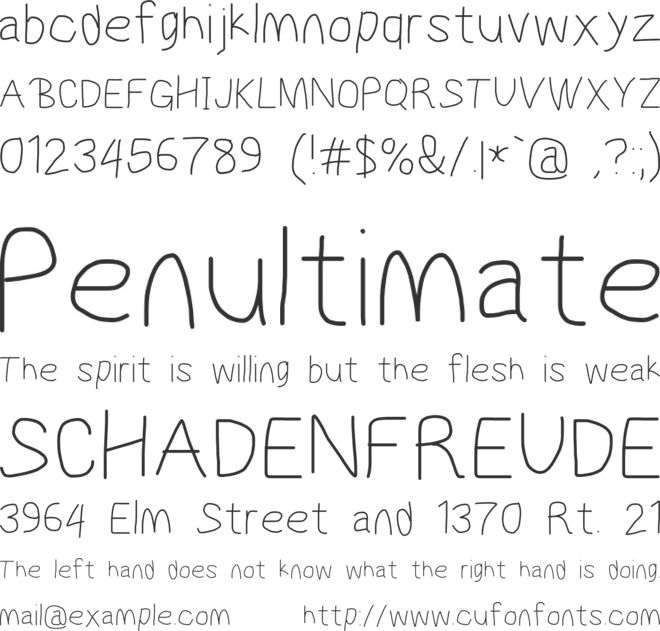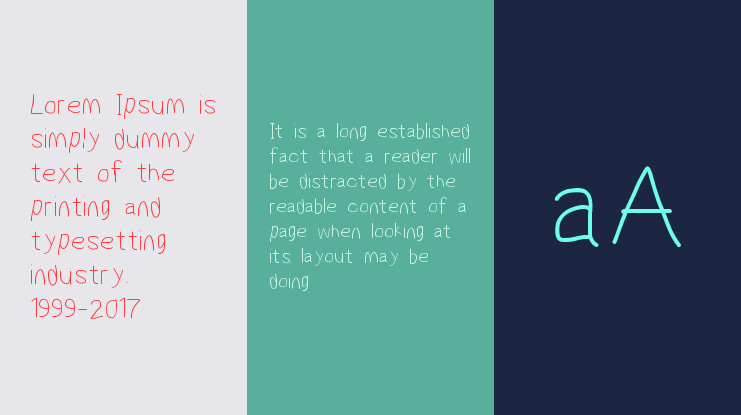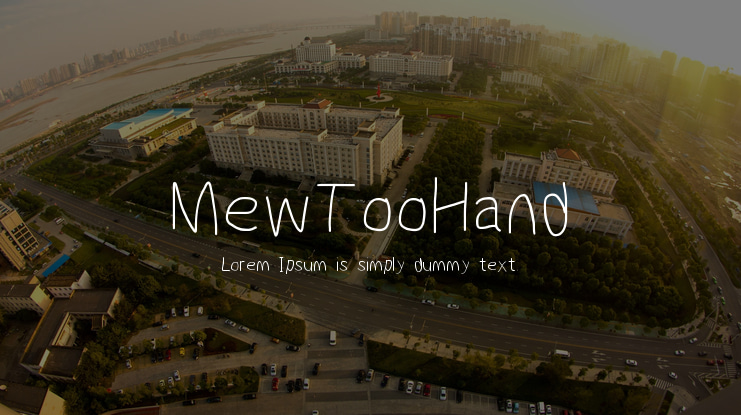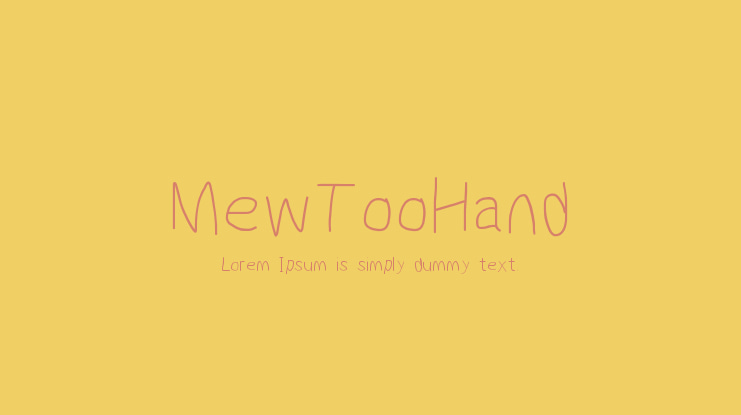
MewTooHand Font Family
Mew Too, Robert Jablonski
This is a new font based off of Mew Too's Handwriting, that I co-designed with her, Includes Russian Cyrillic characters.